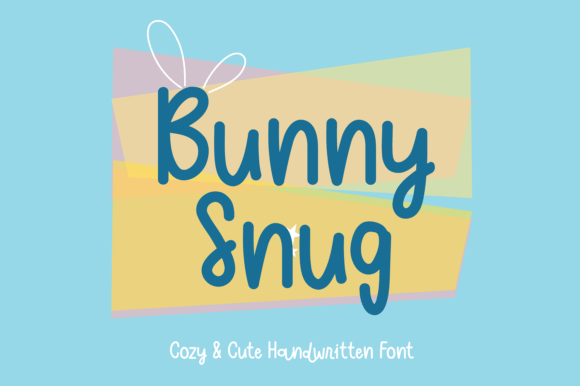
Bunnysnug Font: The Ultimate Choice for Whimsical and Playful Designs
Are you looking for a font that exudes warmth, friendliness, and playfulness? Look no further than the Bunnysnug Font, a sweet and cozy handwritten font that is perfect for a variety of creative projects. With its friendly curves, playful bounce, and adorable bunny-ear personality, this font is sure to capture the hearts of your audience.
What is Bunnysnug Font?
Bunnysnug Font is a unique and charming handwritten font that is designed to bring a sense of whimsy and fun to your designs. Its friendly and approachable style makes it perfect for projects that require a personal touch, such as children’s books, nursery art, kids’ apparel, and Easter designs.
Characteristics of Bunnysnug Font
The Bunnysnug Font has several characteristics that make it stand out from other fonts. Some of its notable features include:
- Friendliness: The font has a warm and friendly tone that makes it perfect for designs that require a personal touch.
- Playfulness: The playful bounce and curves of the font give it a lively and energetic feel.
- Adorability: The bunny-ear personality of the font adds a touch of whimsy and cuteness to your designs.
Uses of Bunnysnug Font
The Bunnysnug Font is a versatile font that can be used for a variety of creative projects, including:
- Children’s projects: The font is perfect for creating children’s books, nursery art, and kids’ apparel.
- Easter designs: The font’s Easter-themed feel makes it perfect for creating Easter-themed designs, such as Easter cards, posters, and social media graphics.
- Kids’ apparel: The font is perfect for creating fun and playful designs for kids’ apparel, such as t-shirts, hoodies, and onesies.
- Nursery art: The font’s whimsical and playful style makes it perfect for creating nursery art, such as wall art, decals, and mobiles.
- Cricut/Silhouette crafts: The font is perfect for creating custom crafts, such as paper crafts, vinyl decals, and iron-on designs.
Why Choose Bunnysnug Font?
There are several reasons why you should choose Bunnysnug Font for your creative projects. Some of the benefits of using this font include:
- Unique and charming style: The font has a unique and charming style that will set your designs apart from others.
- Easy to read: The font is easy to read, making it perfect for designs that require a lot of text.
- Versatile: The font is versatile and can be used for a variety of creative projects.
- High-quality: The font is high-quality and will look great in any design.
Tips for Using Bunnysnug Font
Here are some tips for using Bunnysnug Font:
- Use it for headings and titles: The font is perfect for headings and titles, as it adds a touch of whimsy and playfulness to your designs.
- Pair it with other fonts: The font can be paired with other fonts to create a unique and interesting design.
- Experiment with different colors: The font looks great in a variety of colors, so experiment with different colors to find the one that works best for your design.
In conclusion, Bunnysnug Font is a unique and charming handwritten font that is perfect for a variety of creative projects. Its friendly curves, playful bounce, and adorable bunny-ear personality make it a great choice for designs that require a personal touch. With its versatility, ease of use, and high-quality style, Bunnysnug Font is a great addition to any designer’s font library.
- What is Bunnysnug Font? Bunnysnug Font is a sweet and cozy handwritten font that is perfect for a variety of creative projects.
- What are the characteristics of Bunnysnug Font? The font has a friendly and approachable style, with a playful bounce and adorable bunny-ear personality.
- What are the uses of Bunnysnug Font? The font is perfect for children’s projects, Easter designs, kids’ apparel, nursery art, Cricut/Silhouette crafts, and more.